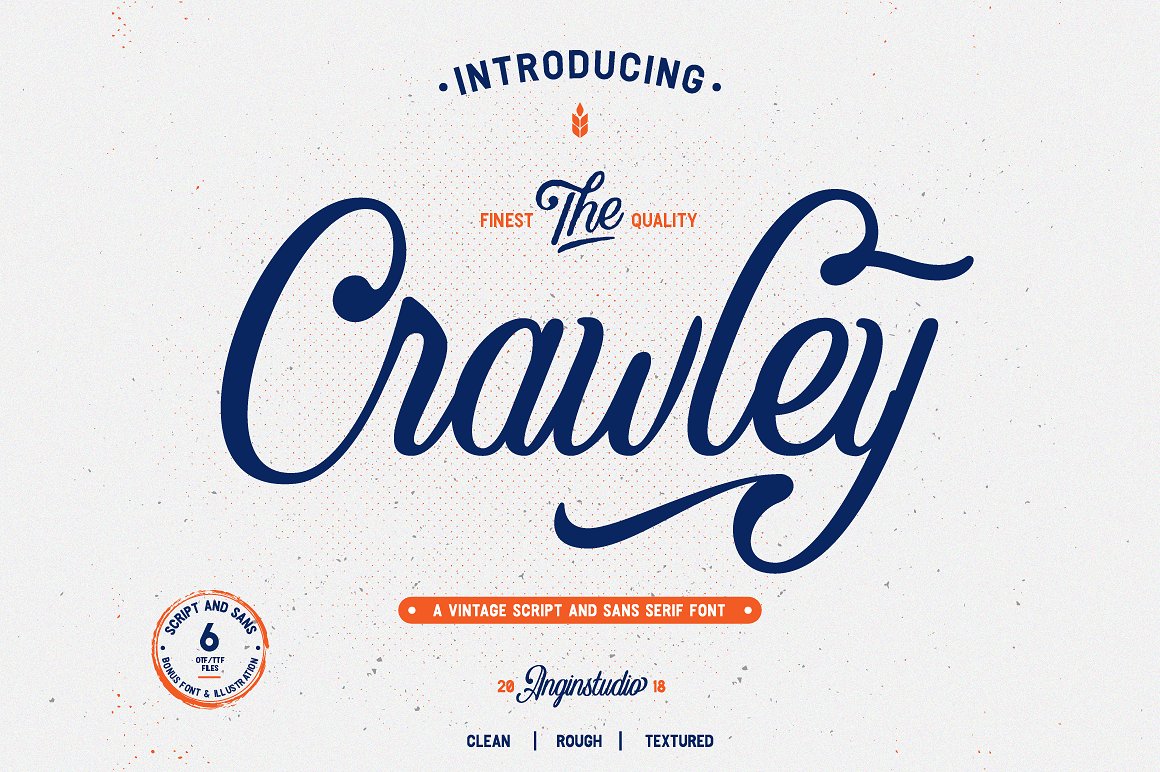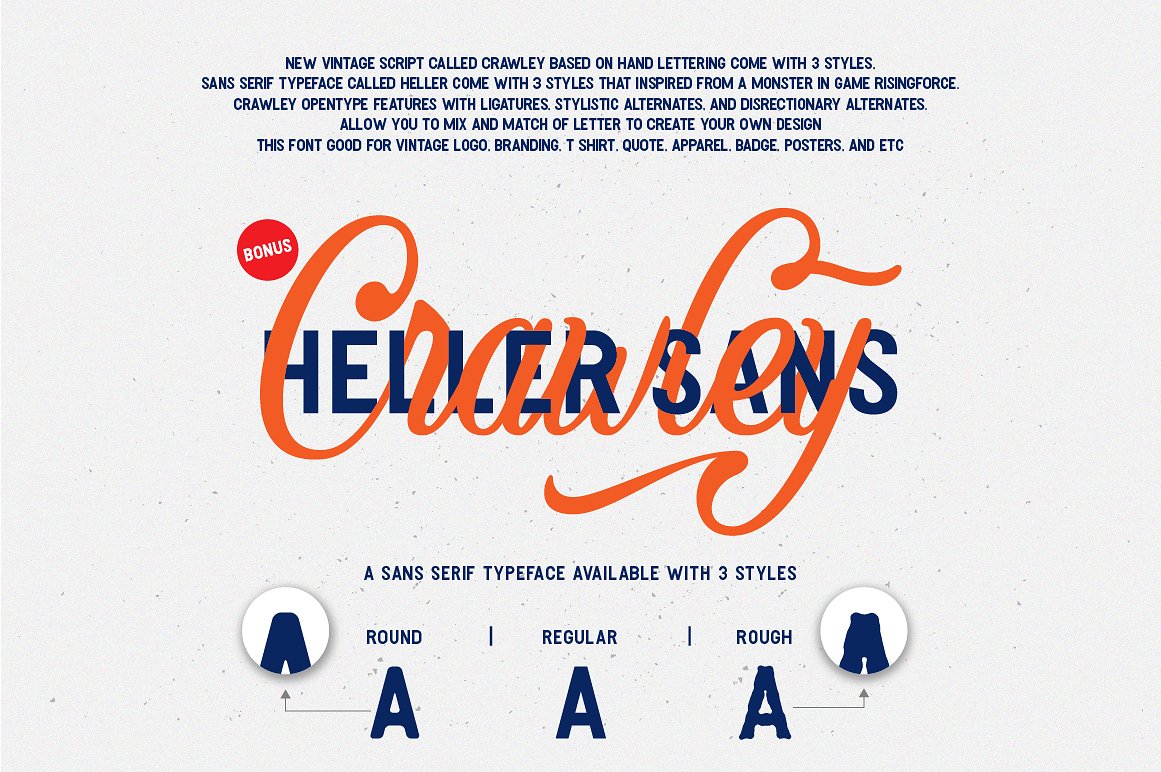
Crawley Vintage Script
Crawley Vintage Script Font
Crawley is a vintage script based on our hand lettering, created carefully to make a good flow and make you feel something, this font inspired by the old american packaging, signs, and labels.
– Ligature
– Discretionary Ligature
– Stylistic Alternate